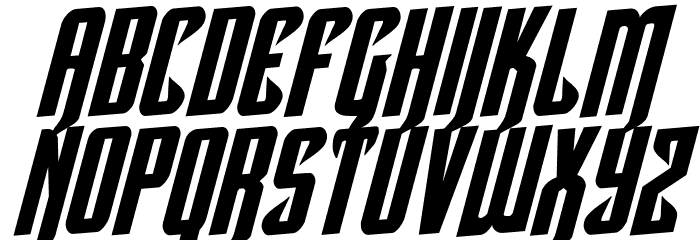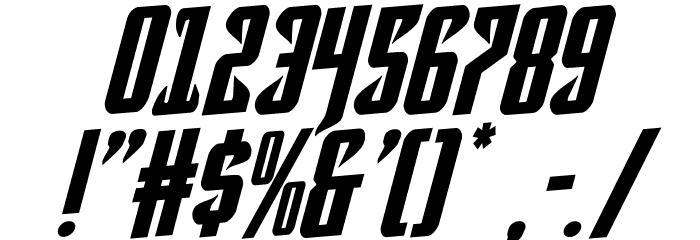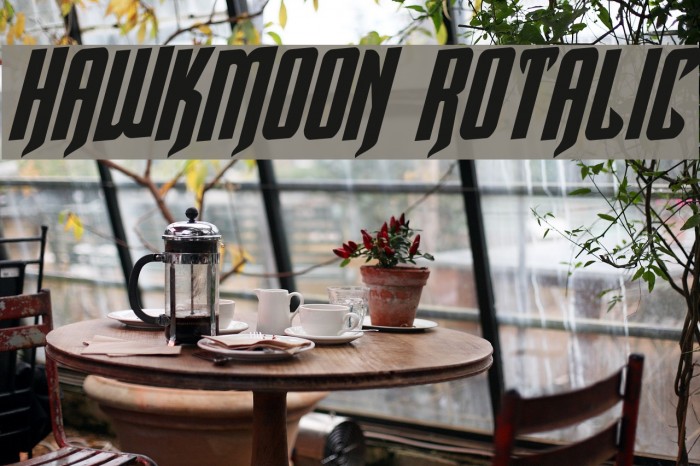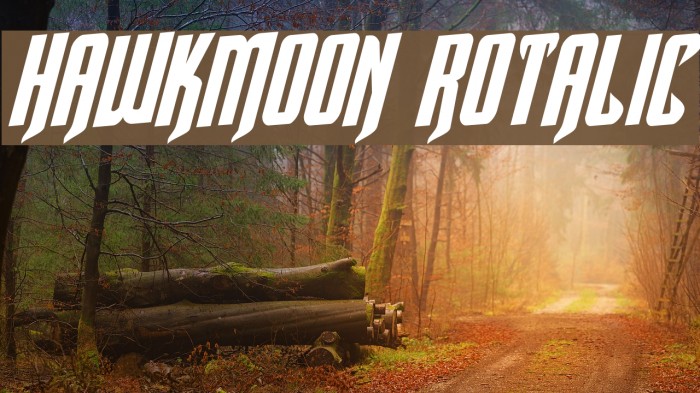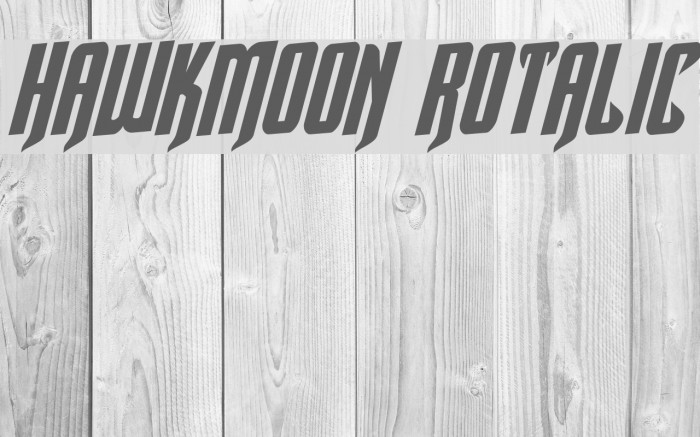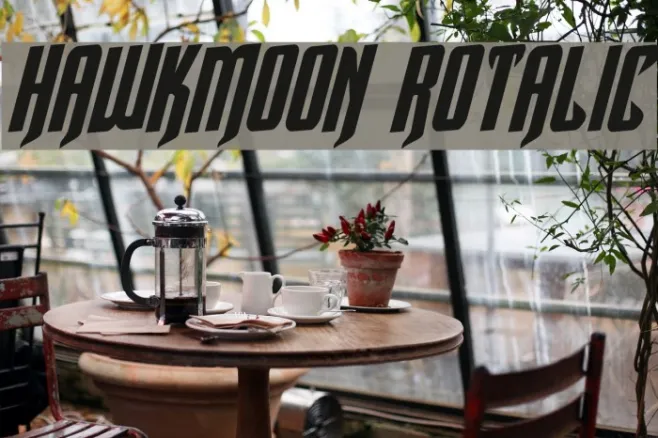
Hawkmoon Rotalic Font
This font features a bold and dynamic style with a strong slant, giving it a sense of motion and energy. The characters are sharply angled and have a distinct geometric quality, making them stand out with a modern and edgy appearance. The uppercase and lowercase letters maintain a consistent style, with the uppercase letters being particularly striking due to their elongated forms. The numbers and special characters follow the same design principles, ensuring uniformity across the entire character set. This font's unique style is ideal for projects that require a bold and impactful visual statement.
A bold, slanted font with a dynamic and modern geometric style.
- Proposed Projects: Ideal for sports branding, dynamic posters, video game titles, and edgy graphic design projects.
- Character Spacing: Tight